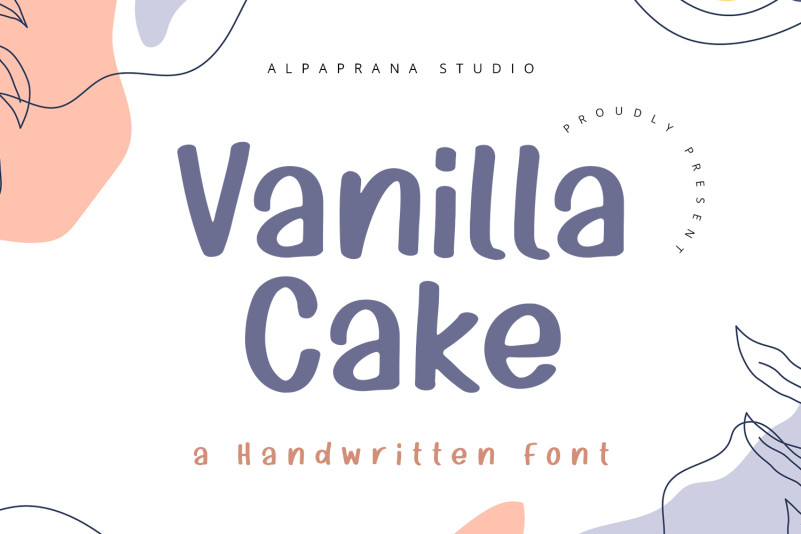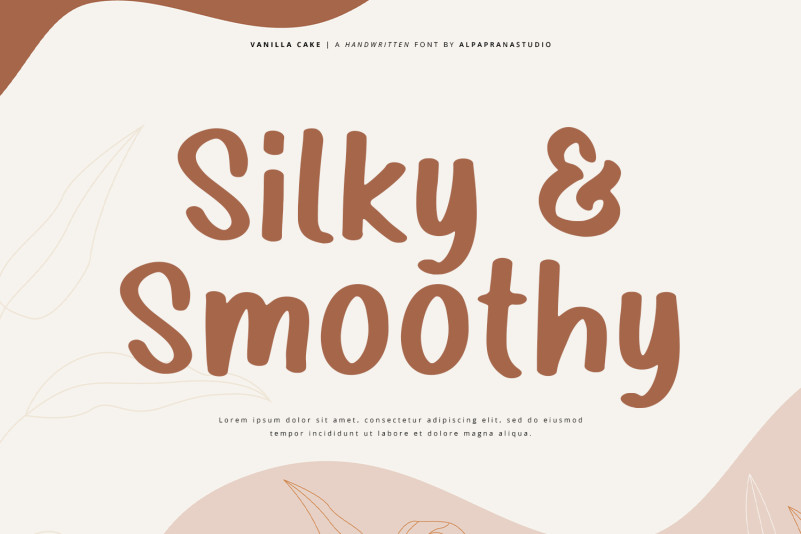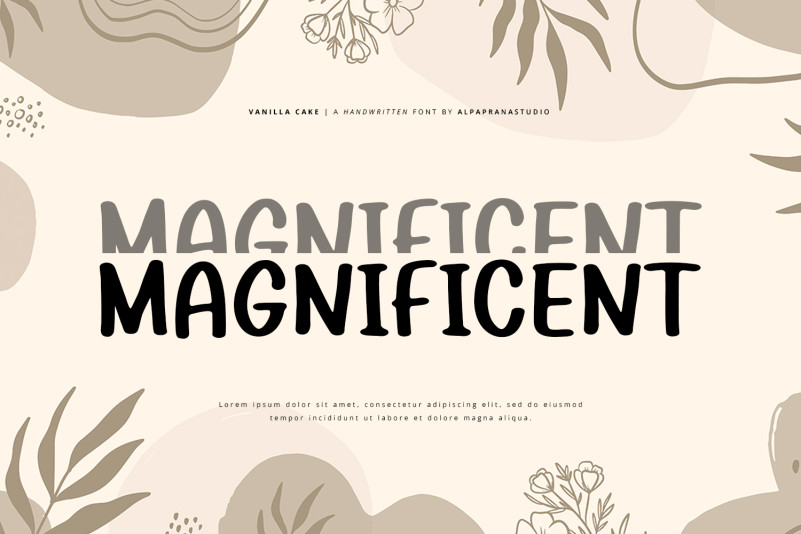
Vanilla Cake Font
Vanilla Cake Font is a handwritten display font with natural and modern feels. It will be perfectly used for Branding, Logo Design, Lettering, Logotype, Clothing, Poster, magazine, packaging, posters, shopping bags, t-shirts, book covers, photography, special events and other design project.